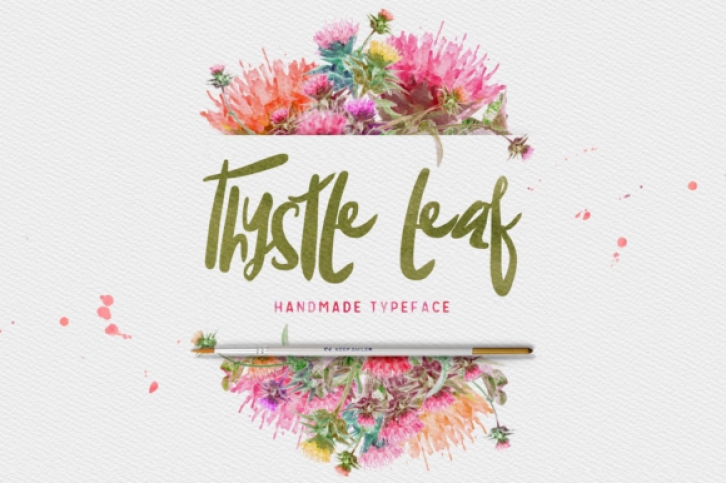
The Thystle Leaf is an imperfect, hand drawn display semi-script typeface with an irregular baseline. It has bold letters with a great readability which will make any design stand out.